Genre Matching
Map fonts to art direction, emotional tone, worldbuilding, and campaign visuals.
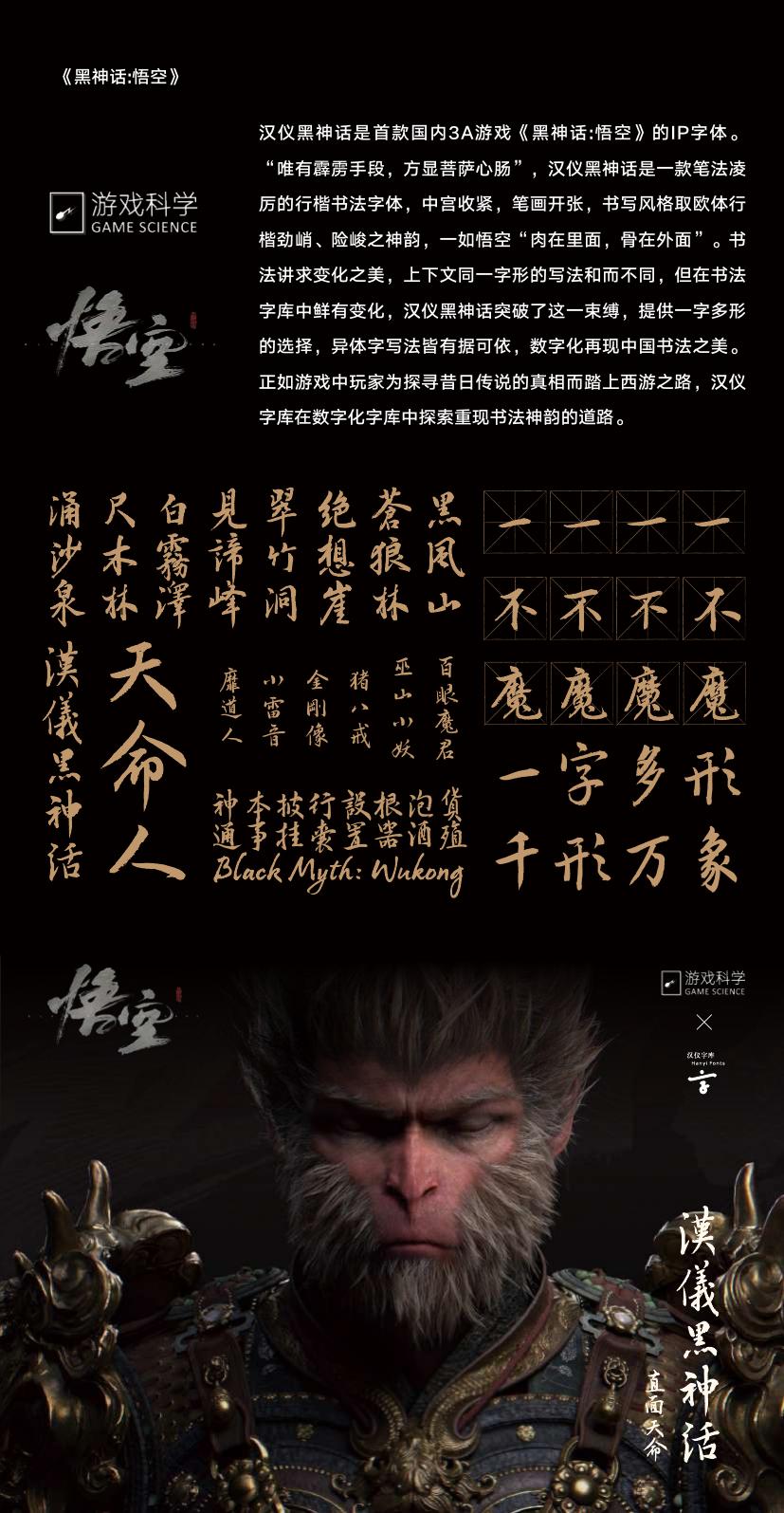
Game Typography Solutions
From UI readability to world-building.
Game Font presents Hanyi's solution framework for game typography: genre-based font selection, UI readability, multilingual launch support, and custom typefaces for distinctive game worlds.
Overview
The solution starts with genre fit: oriental aesthetics, pixel art, fantasy, hard sci-fi, romantic luxury, dark aesthetics, and street hand-drawn styles.
It then moves into system fonts for menus, dialogue, prompts, subtitles, and dense information layers where reading comfort matters.
For major IPs, custom fonts transform the game world into a recognizable visual language, as seen in Black Myth: Wukong, Game for Peace, Identity V, and Clash Royale.
Map fonts to art direction, emotional tone, worldbuilding, and campaign visuals.
Support menus, subtitles, prompts, skills, missions, and live operations with clear hierarchy.
Design typefaces that carry the game setting, brand personality, and cultural value.
Case Details
These modules translate the game typography solution into practical guidance: match type to genre, keep system UI readable, and build custom fonts for major IPs.
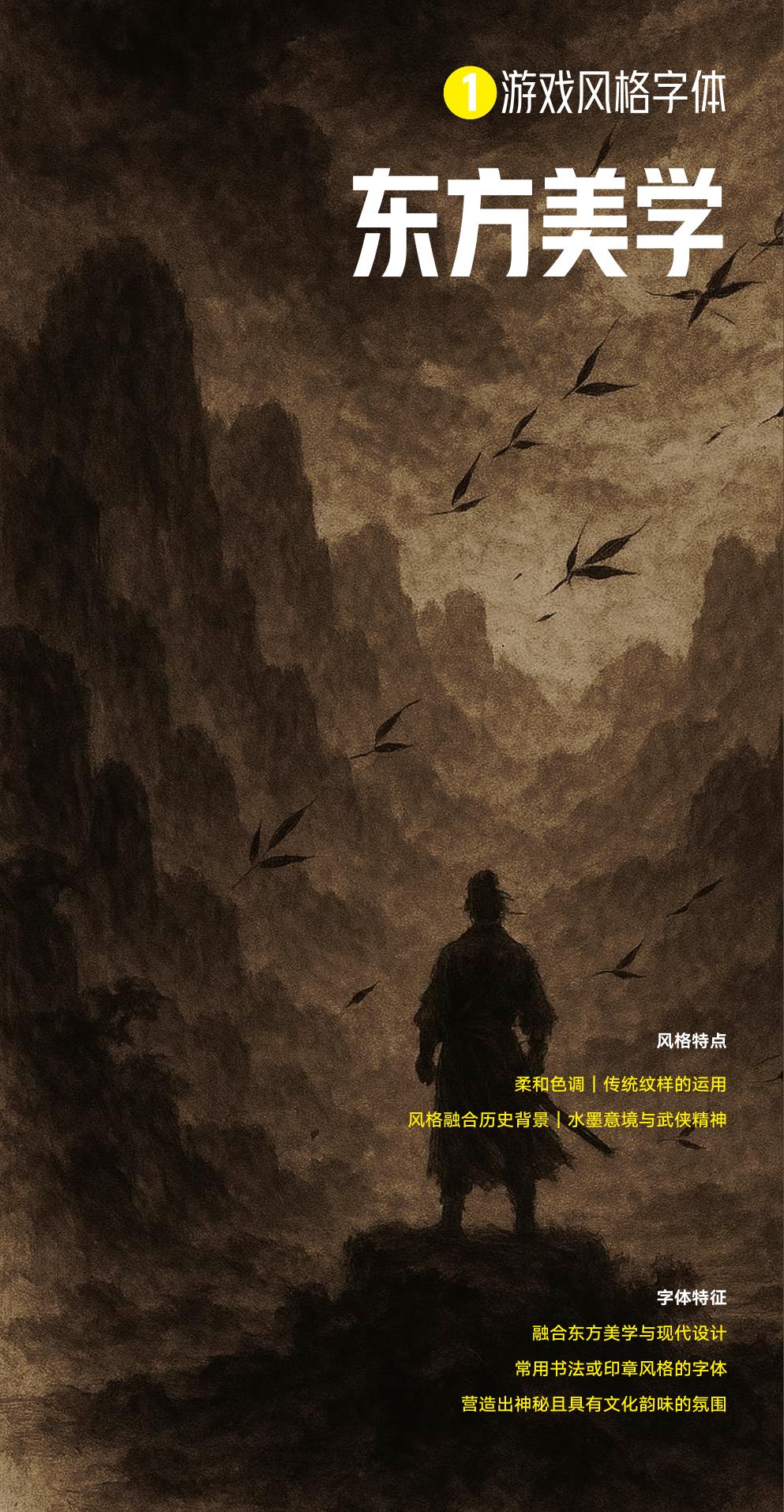
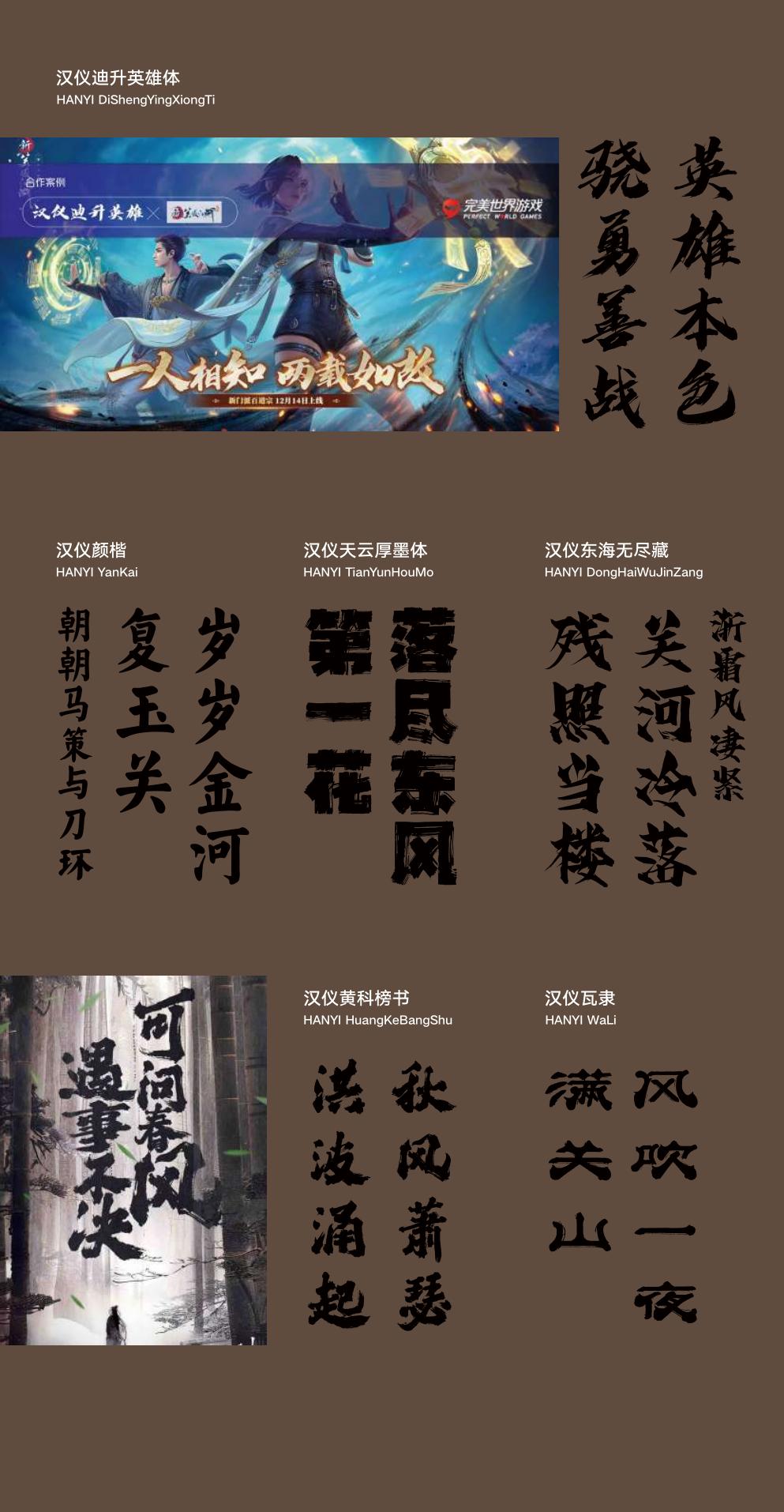
Soft palettes, traditional ornament, historical settings, ink-wash atmosphere, and wuxia spirit call for brush, seal, and calligraphic styles with cultural depth.
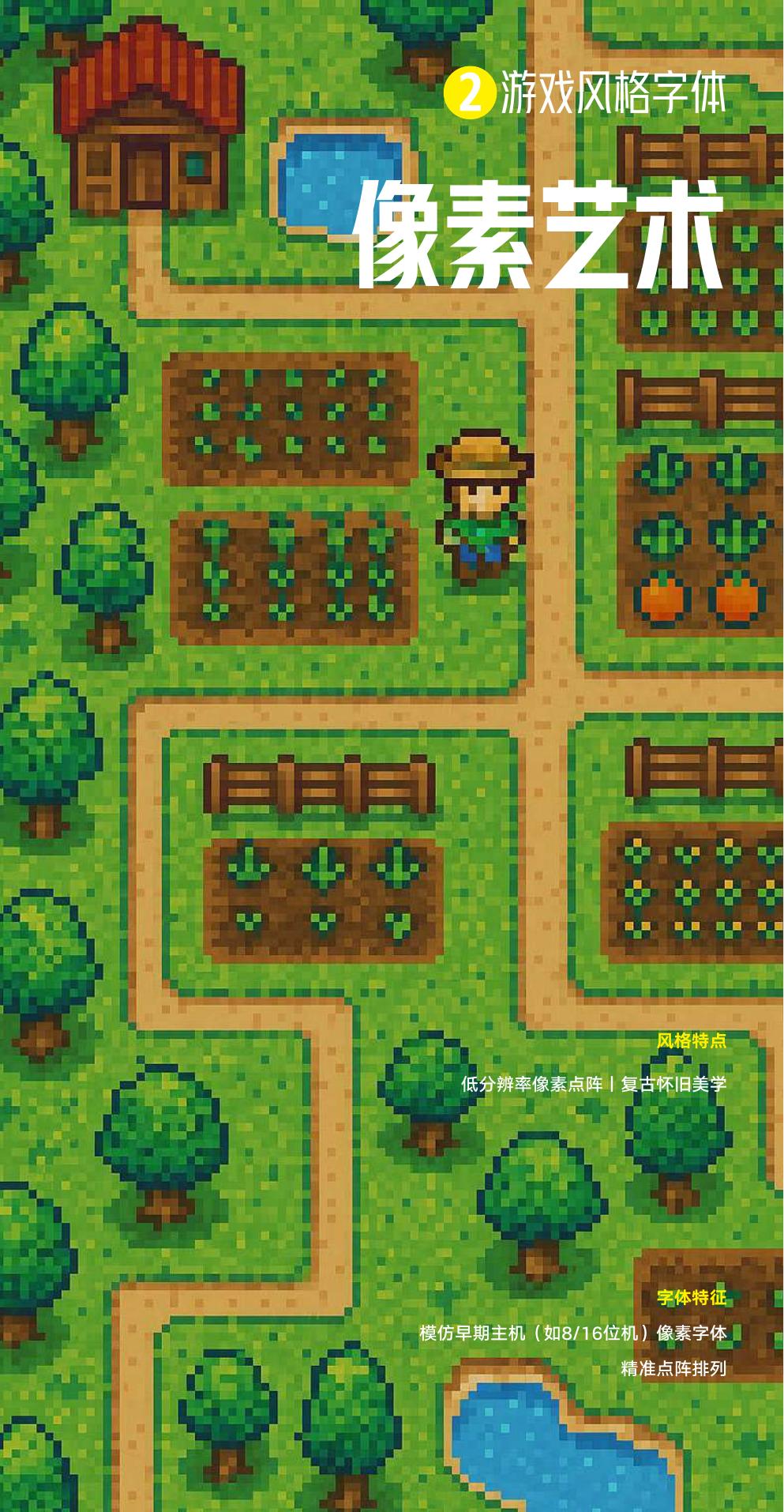
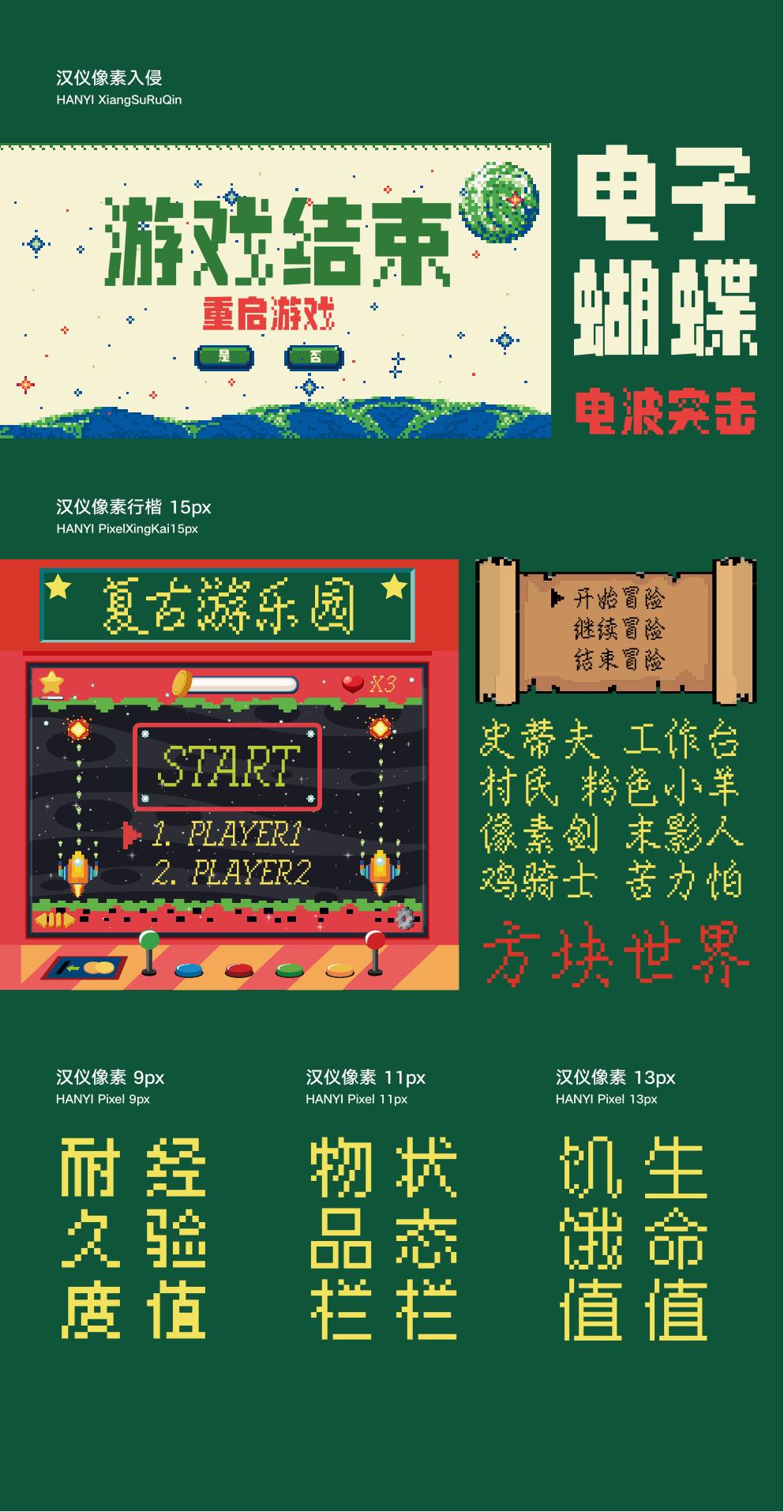
Low-resolution dot-matrix forms and retro 8-bit or 16-bit aesthetics create a precise grid rhythm for nostalgic menus, status panels, and adventure interfaces.
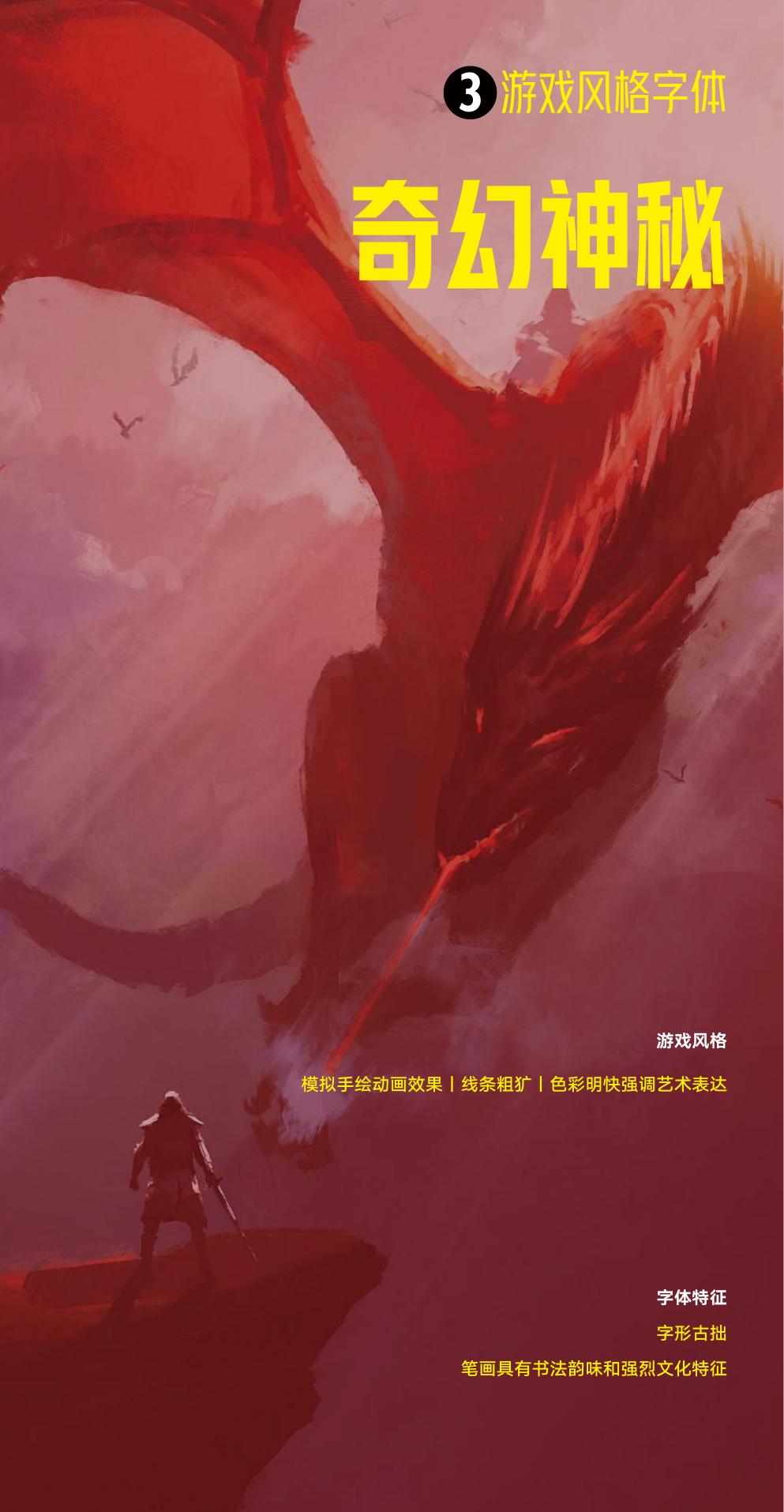
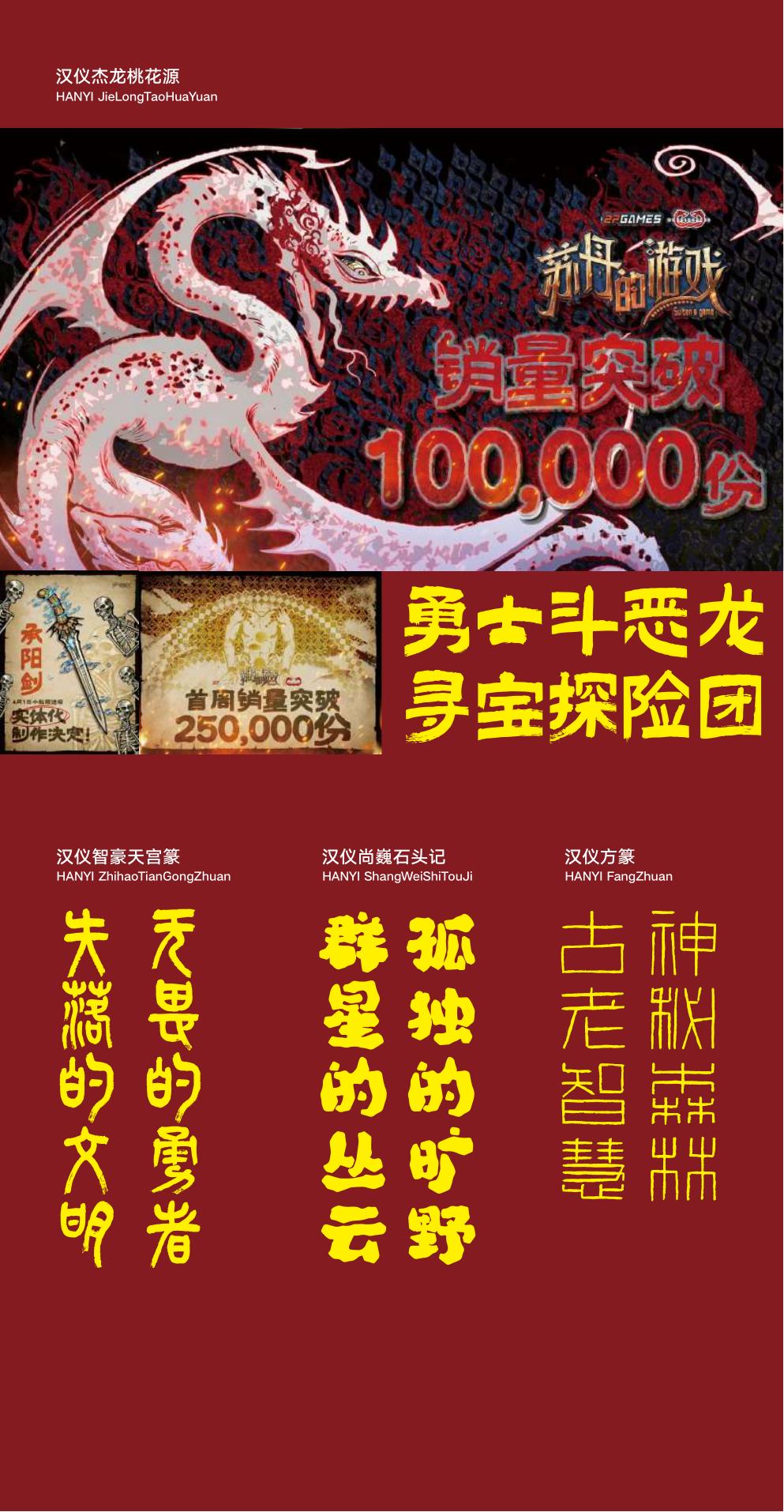
Hand-drawn energy, rough expressive lines, vivid color, ancient forms, and calligraphic strokes help build mysterious worlds and quest-driven narratives.
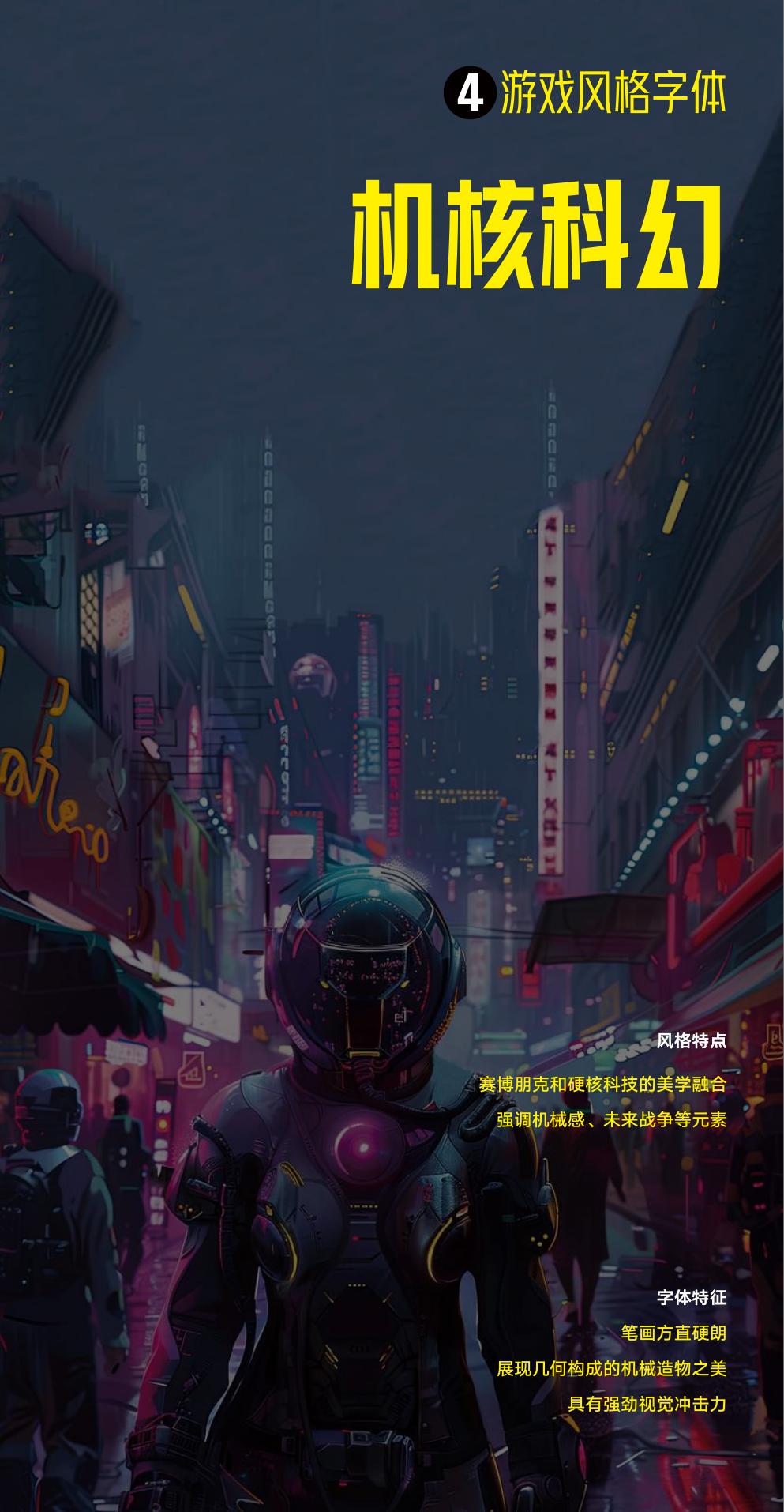
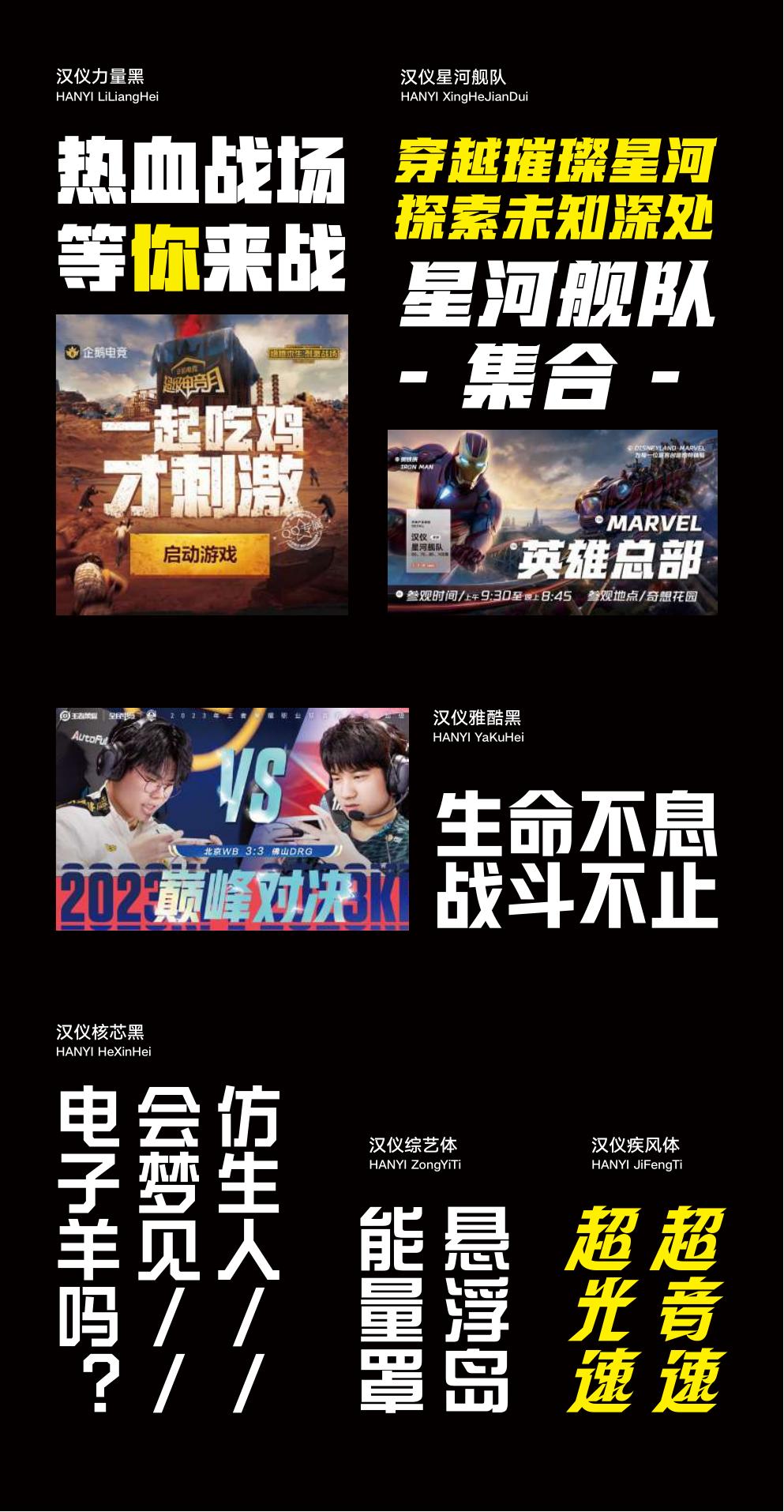
Cyberpunk interfaces, industrial technology, mechanical structures, and future-war themes call for square, geometric, high-impact type with an engineered presence.
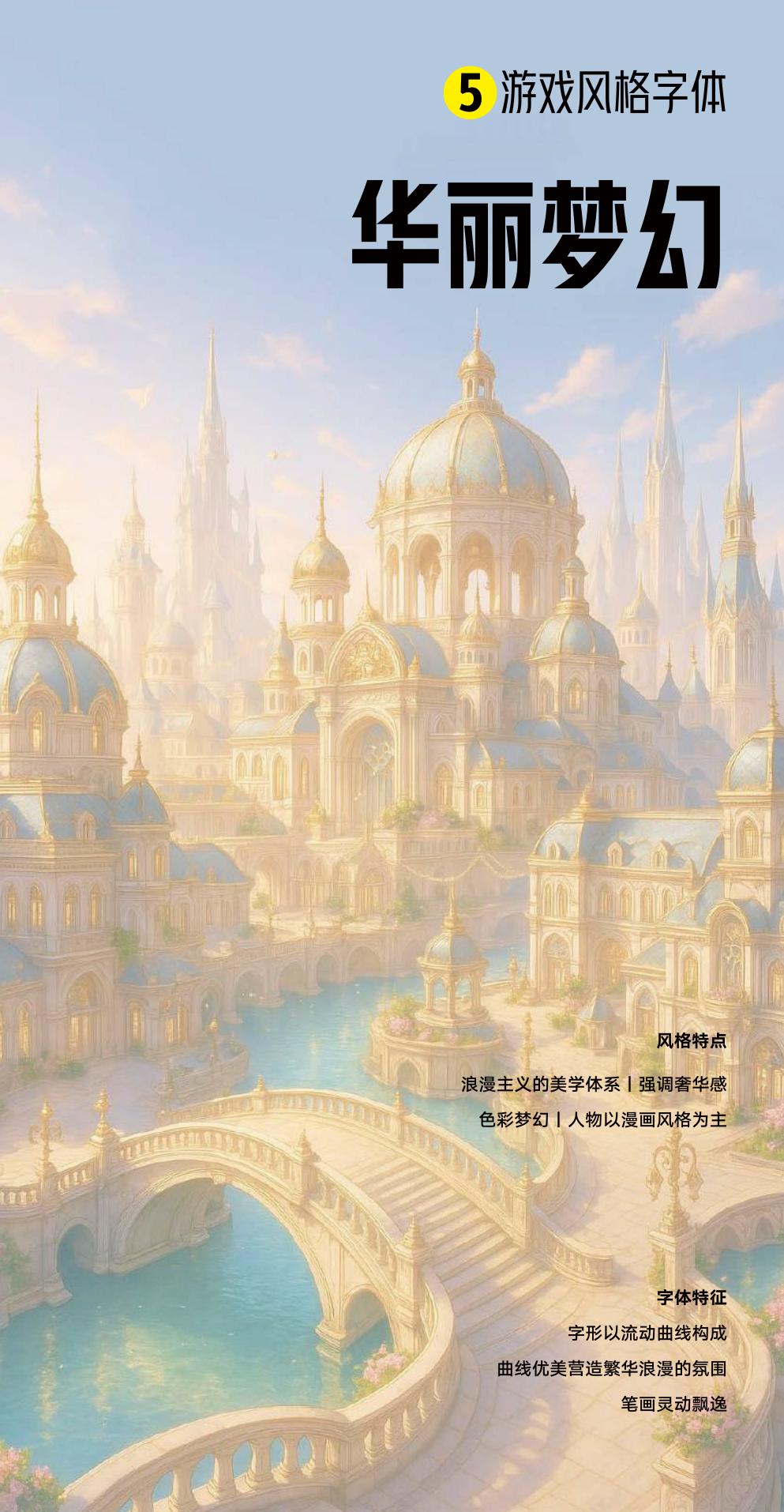
Romantic worlds, dreamlike color, luxury cues, and manga-inspired characters benefit from flowing curves, elegant rhythm, and lighter, more graceful strokes.
Gothic mood, shadowed mystery, sharp strokes, expressive forms, and thorn-like details give horror, dark fantasy, and occult worlds a stronger visual voice.
Graffiti freedom, unfinished textures, high-contrast splashes, brush traces, ink-like effects, fluid deformation, and slanted forms suit street-driven game visuals.
Families such as Hanyi WenHei, YouYuan, and JiangJun support menus, body text, prompts, and multilingual UI samples with dependable hierarchy and reading comfort.
Black Myth: Wukong and Clash Royale show how custom Chinese type can carry calligraphic spirit, brand recognition, and visual consistency across game worlds.
Applications
Game Font gives publishers, studios, localization teams, and IP owners a practical framework for type selection and custom font development.
Pre-production
Font style can be tied to world-building before UI, logo, and marketing assets diverge.
Production
System fonts need low cognitive load across menus, subtitles, inventory, prompts, and live ops.
Launch
Global font configuration helps games enter new markets without losing their visual identity.